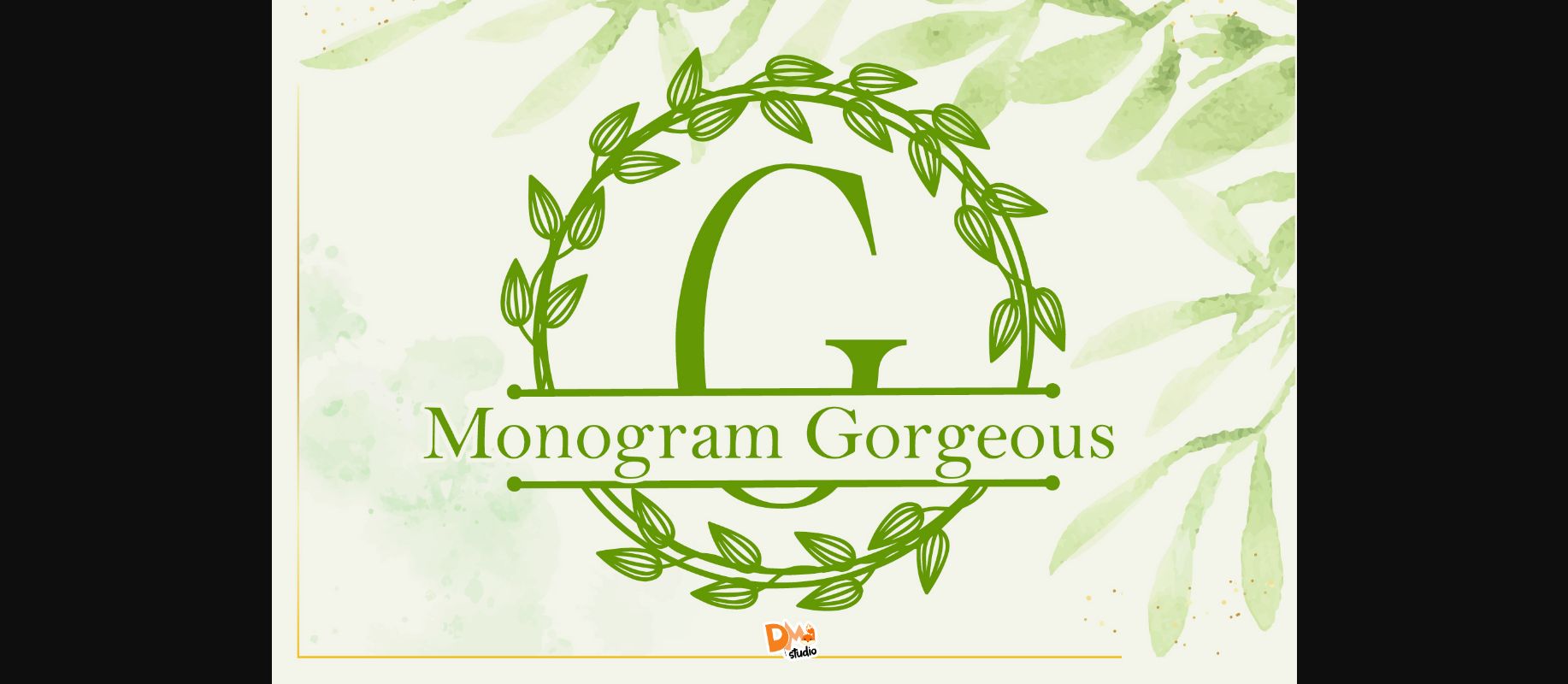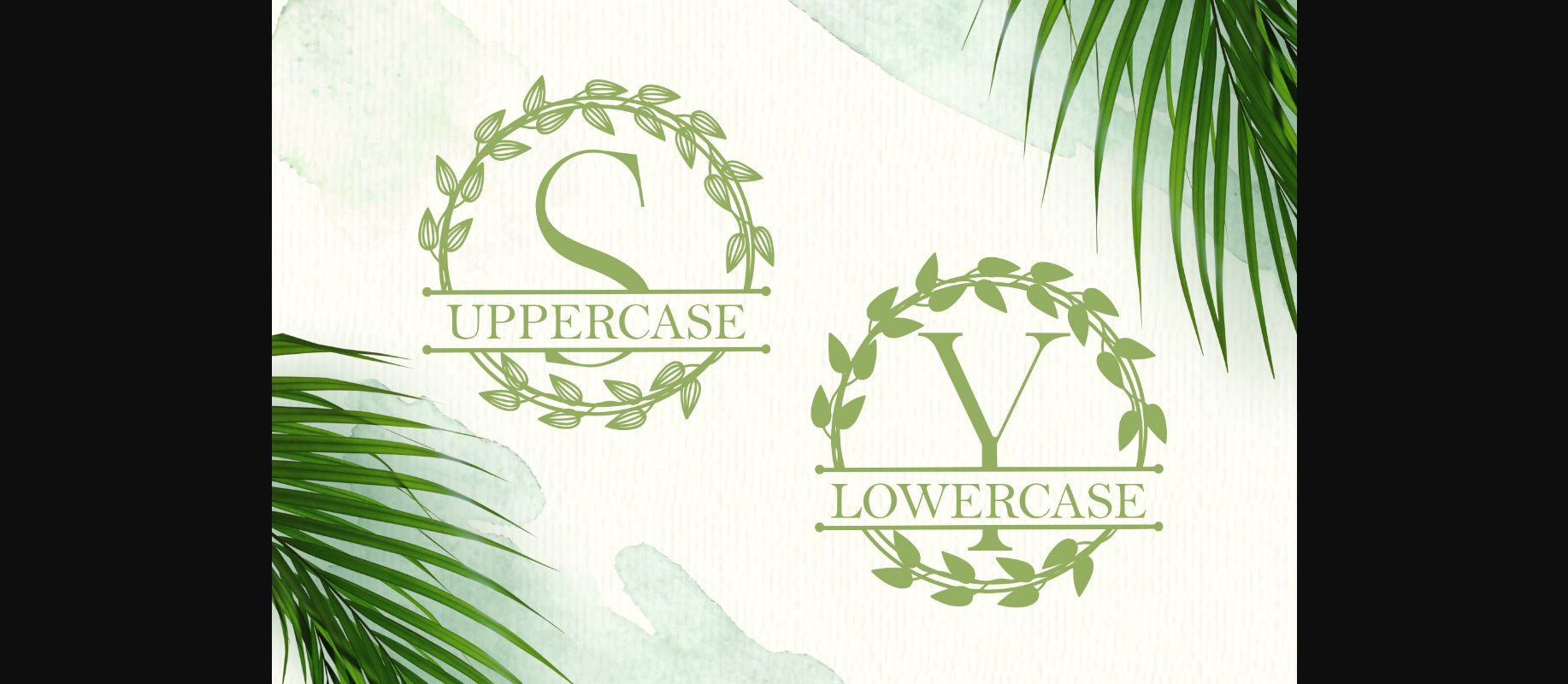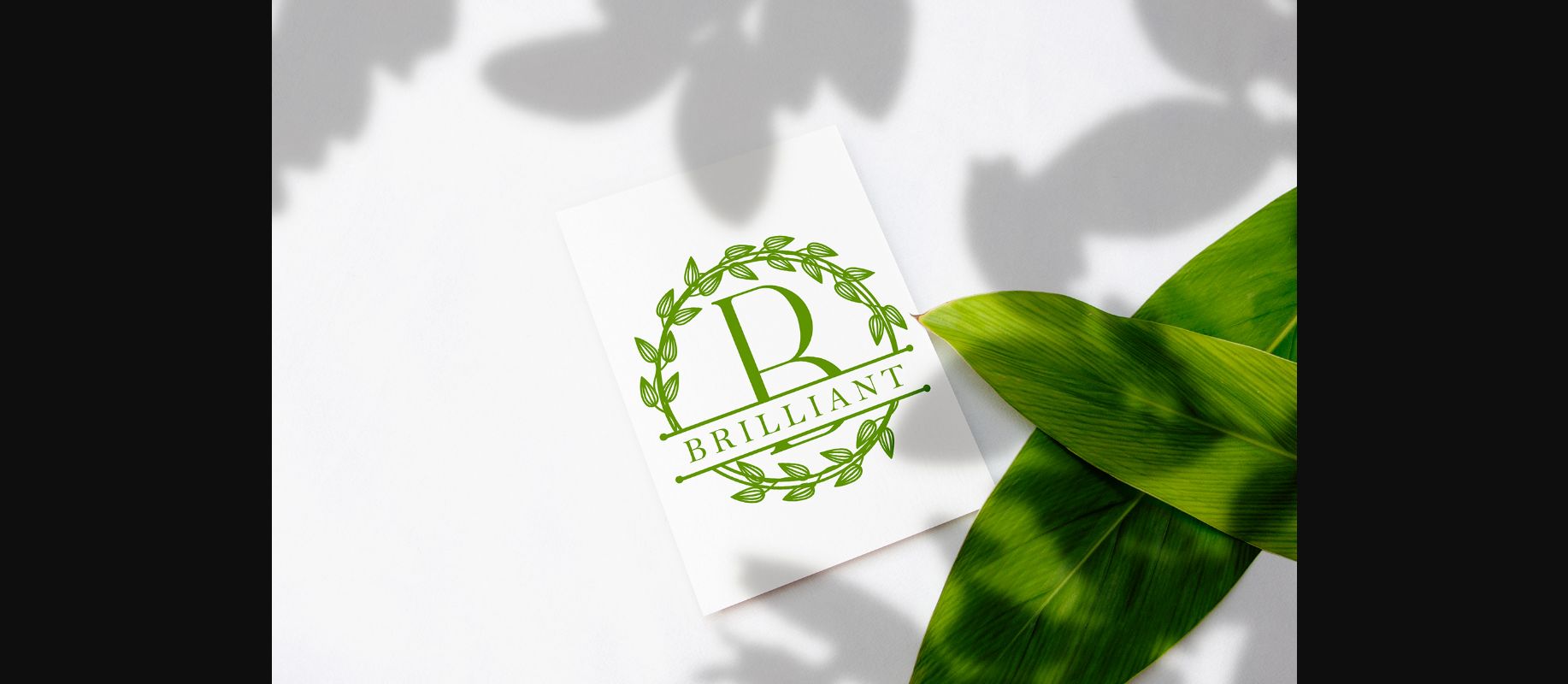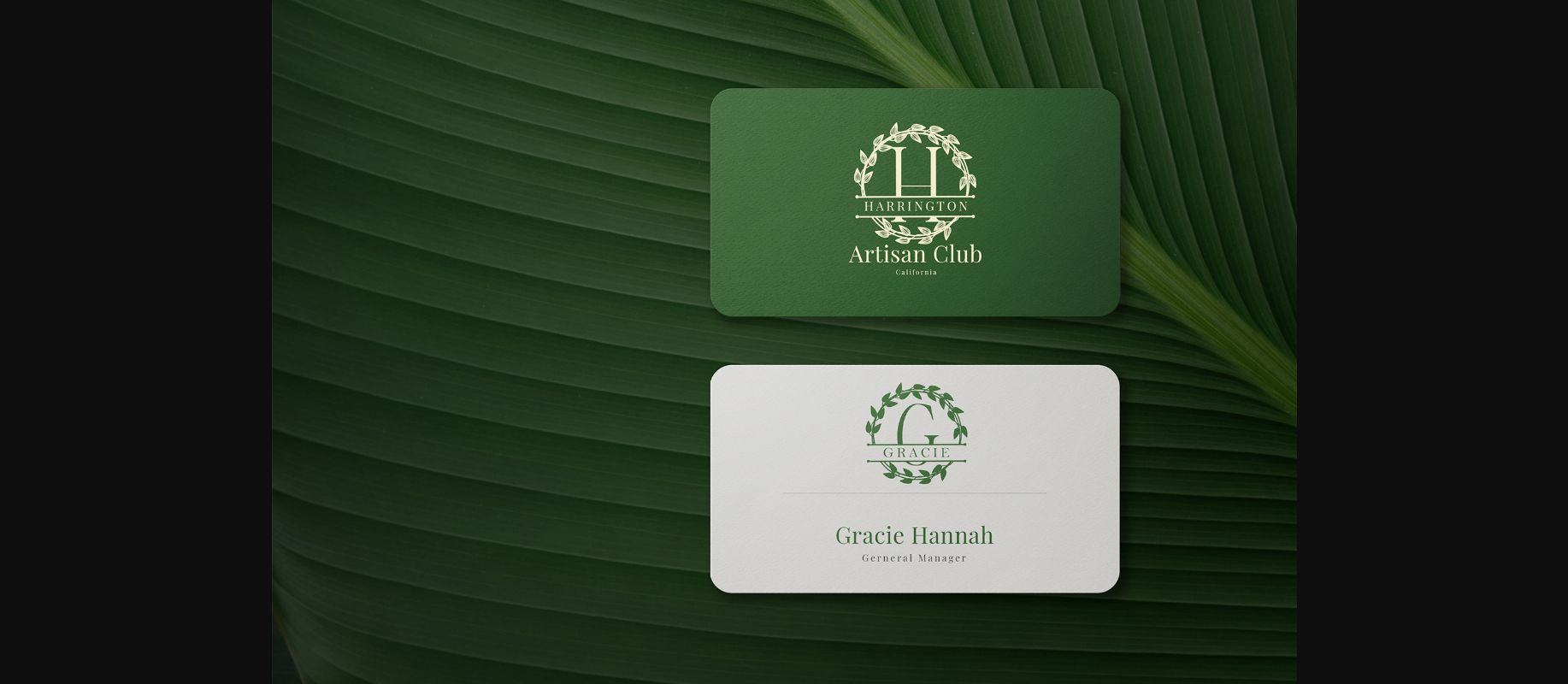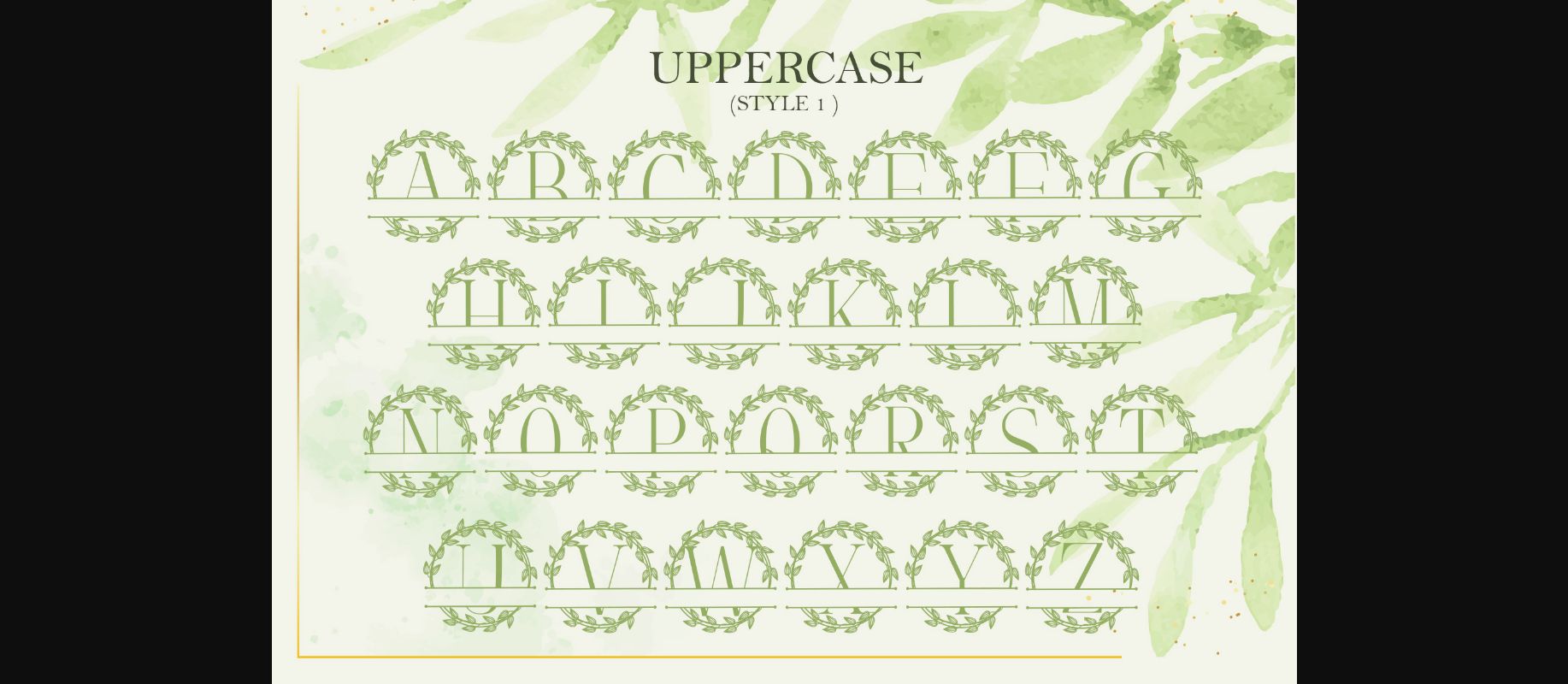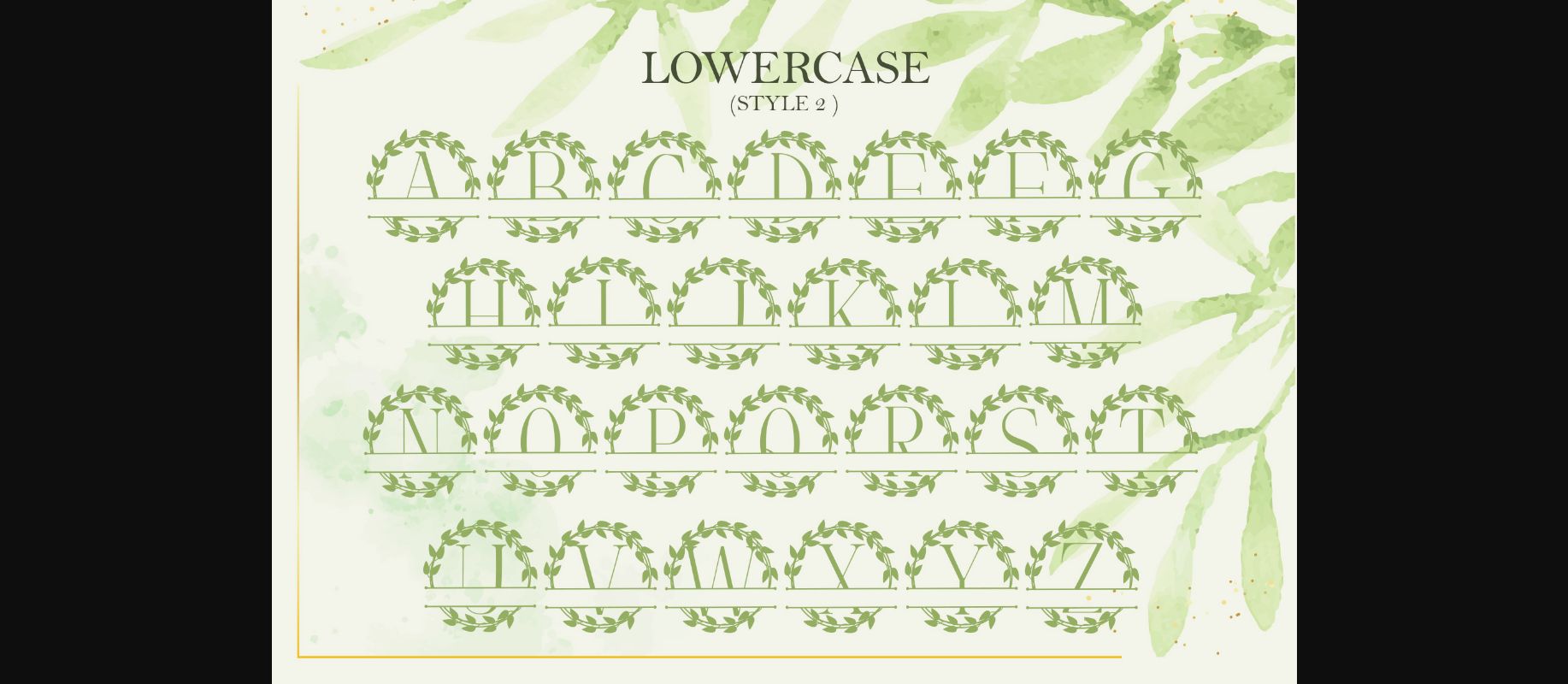
Monogram Gorgeous Font
About Monogram Gorgeous Font
Monogram Gorgeous is a beautiful and fresh decorative font.
Fall in love with its romantic touch, and create some gorgeous designs for your special occasions, business designs, logos, branding, social media posts, and wedding cards.